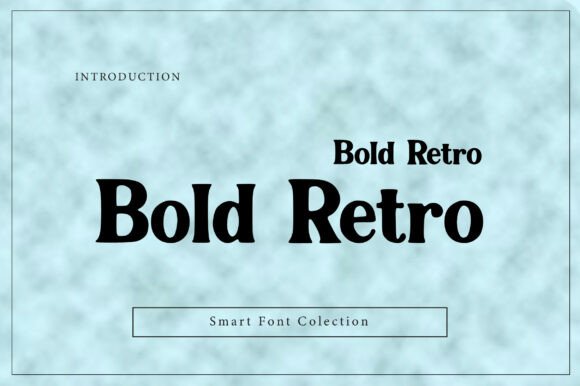
Step Back into the Golden Era of Design with Bold Retro Font
Are you looking to add a touch of nostalgia and sophistication to your design project? Look no further than the Bold Retro font, a typeface that perfectly captures the essence of vintage aesthetics while maintaining a sharp, modern edge. This font is built for impact, featuring thick, confident strokes and subtle flared terminals that evoke the spirit of mid-century advertising and classic cinema.
The Soul of Vintage Design
The Bold Retro font is more than just a typeface – it’s a design statement. It’s a way to instantly inject a sense of nostalgia and reliability into your project. With its bold, confident strokes and classic terminals, this font is reminiscent of a bygone era when design was all about making a statement. Whether you’re designing a brand identity for a boutique coffee shop or a poster for a classic car show, the Bold Retro font provides the “heft” and personality needed to stand out in a crowded digital landscape.
One of the standout features of the Bold Retro font is its remarkable versatility. This font can be used for a wide range of design projects, from bold logotypes and nostalgic packaging to high-contrast editorial layouts. Whether you’re a designer, craftsperson, or DIY enthusiast, the Bold Retro font is the perfect choice for anyone looking to add a touch of vintage flair to their work.
Pairing Options
To maximize the potential of the Bold Retro font, it’s essential to pair it with the right complementary fonts. Here are a few suggestions:
- Clean and Minimalist: Pair the Bold Retro font with a clean, minimalist sans-serif for a balanced look. This will create a beautiful contrast between the bold, vintage-inspired typeface and the modern, streamlined font.
- Lean into the Vintage Vibe: For a more nostalgic look, try layering the Bold Retro font with grain textures and muted earth tones. This will create a warm, retro-inspired aesthetic that’s perfect for designs that require a vintage feel.
Design Inspiration
The Bold Retro font is inspired by the golden era of design, when typography was an art form and every letter counted. Here are a few design ideas to get you started:
- Brand Identity: Use the Bold Retro font to create a bold, eye-catching logo for a boutique coffee shop, vintage clothing store, or classic car dealership.
- Poster Design: Create a stunning poster for a classic car show, music festival, or vintage-themed event using the Bold Retro font.
- Packaging Design: Add a touch of nostalgia to your packaging design with the Bold Retro font. Perfect for vintage-inspired products, such as artisanal foods, craft beverages, or handmade crafts.
Why Choose Bold Retro Font?
So why choose the Bold Retro font for your design project? Here are just a few reasons:
- Unique and Memorable: The Bold Retro font is a unique and memorable typeface that’s sure to grab attention.
- Versatile: This font can be used for a wide range of design projects, from branding and packaging to editorial layouts and posters.
- Nostalgic: The Bold Retro font evokes a sense of nostalgia and reliability, perfect for designs that require a vintage or classic feel.
In conclusion, the Bold Retro font is a powerful design tool that’s perfect for anyone looking to add a touch of vintage flair to their work. With its bold, confident strokes and subtle flared terminals, this font is sure to make a statement. Whether you’re a designer, craftsperson, or DIY enthusiast, the Bold Retro font is the perfect choice for anyone looking to create a unique and memorable design.